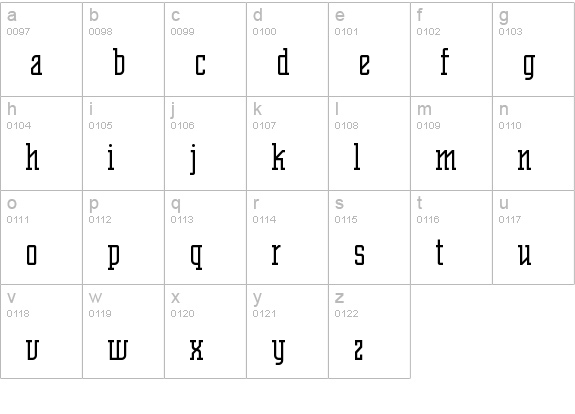
SenatorThin Regular Font Details
SenatorThin Regular is the standard, neutral variant in the SenatorThin typeface family \xE2\x80\x94 well suited to general body text, paragraphs, and standard typographic work.
SenatorThin Regular font is a sleek and elegant typeface that exudes sophistication and modernity. With its thin and delicate strokes, this font is perfect for creating a refined and minimalist look in your designs. The clean letterforms and balanced proportions make it highly legible, ensuring that your message comes across clearly to your audience. What sets SenatorThin Regular font apart is that it is freely available to download at FontsMarket.com. This means that you can use this stunning font in your personal and commercial projects without any restrictions or limitations. Whether you are designing a logo, creating a website, or working on a branding project, SenatorThin Regular font will add a touch of elegance and professionalism to your work. The versatility of SenatorThin Regular font allows it to be used in a wide range of design applications. Its contemporary and clean aesthetic makes it suitable for use in print materials such as brochures, magazines, and posters. It also works seamlessly in digital designs, including websites, social media graphics, and app interfaces. With its timeless appeal and modern sensibility, SenatorThin Regular font is a must-have for any designer or creative professional. Its understated beauty and effortless readability make it a versatile choice for a variety of projects. Download SenatorThin Regular font for free at FontsMarket.com and elevate your designs with its sophisticated charm.